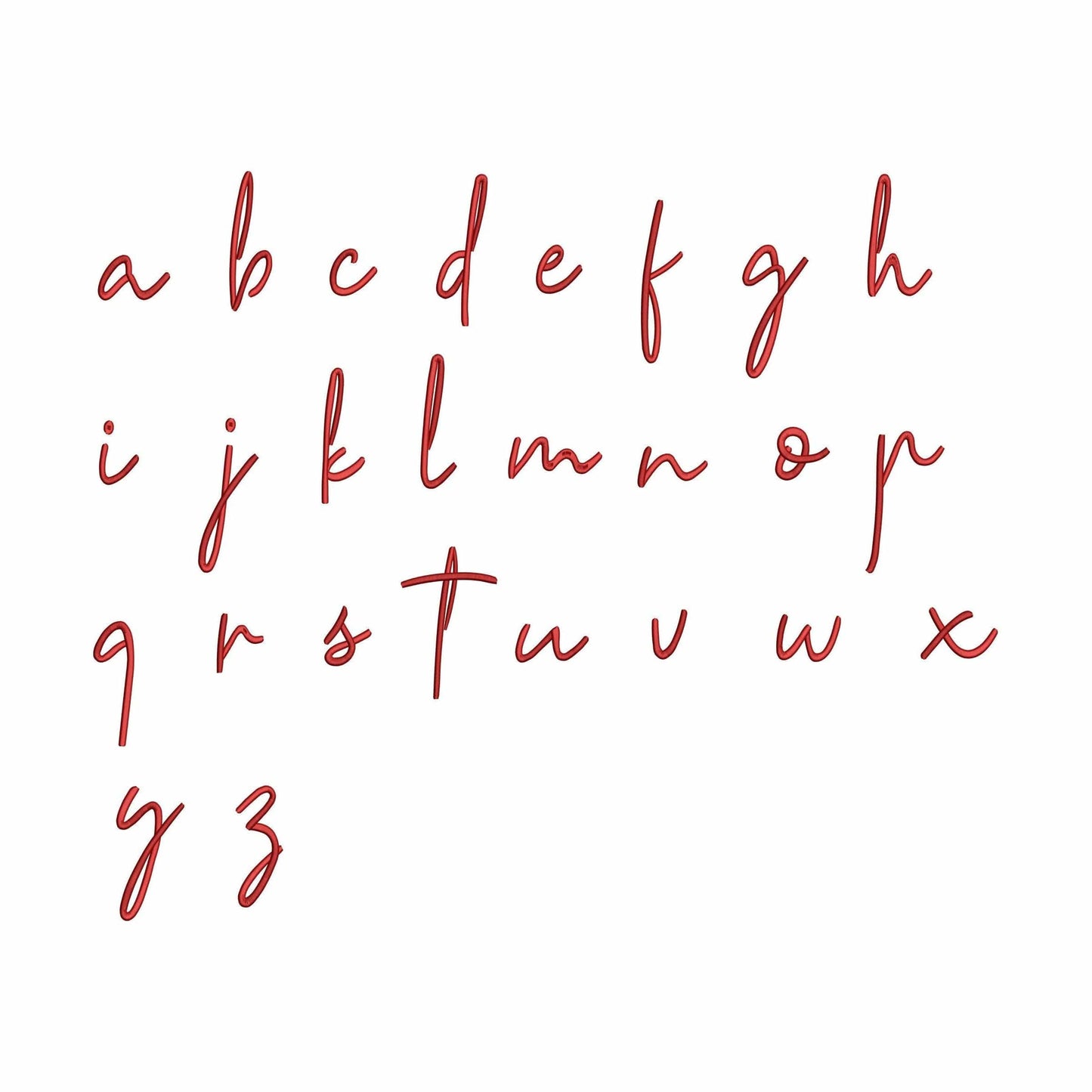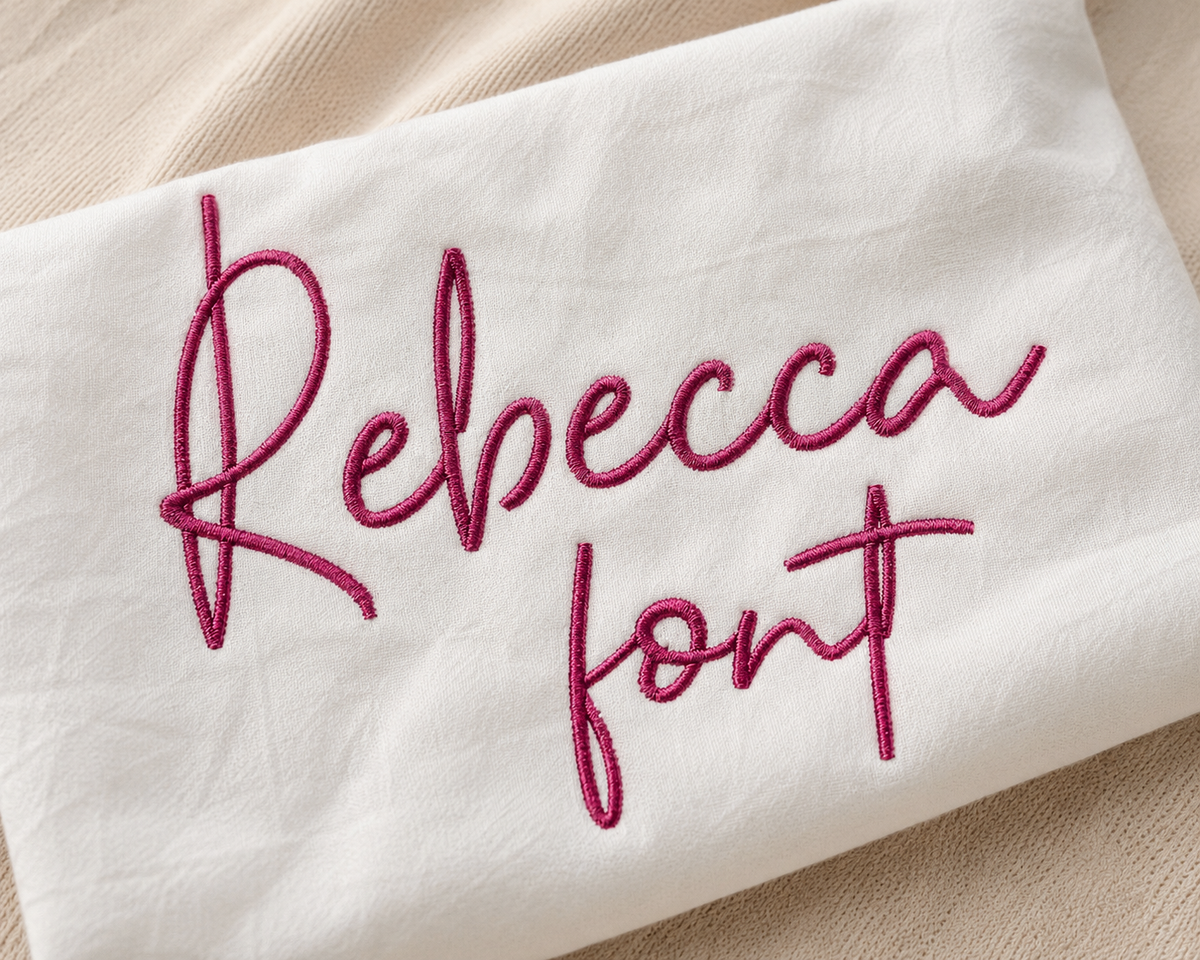
Rebecca - Embroidery font
This machine embroidery font works well for monograms, towels, shirts, gifts, robes, and elegant custom embroidery.
A strong choice for makers who want script lettering for refined personalized projects and everyday monogram stitching.